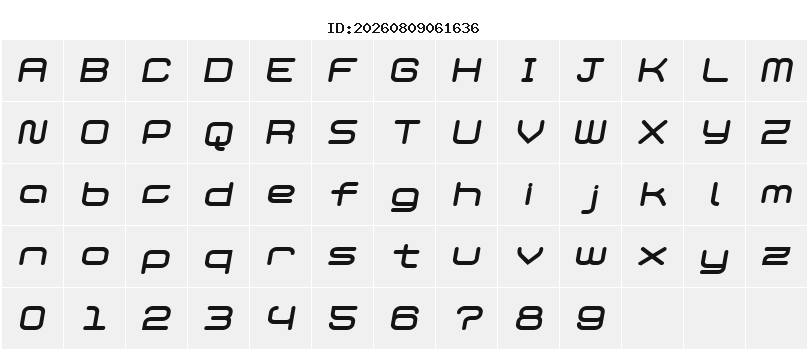
PhantomBold Italic Preview
About PhantomBold Italic.ttf
PhantomBold Italic.ttf is a modern, elegant sans-serif font designed for ultimate readability and visual harmony. Perfect for branding, headlines, web design, and print materials.